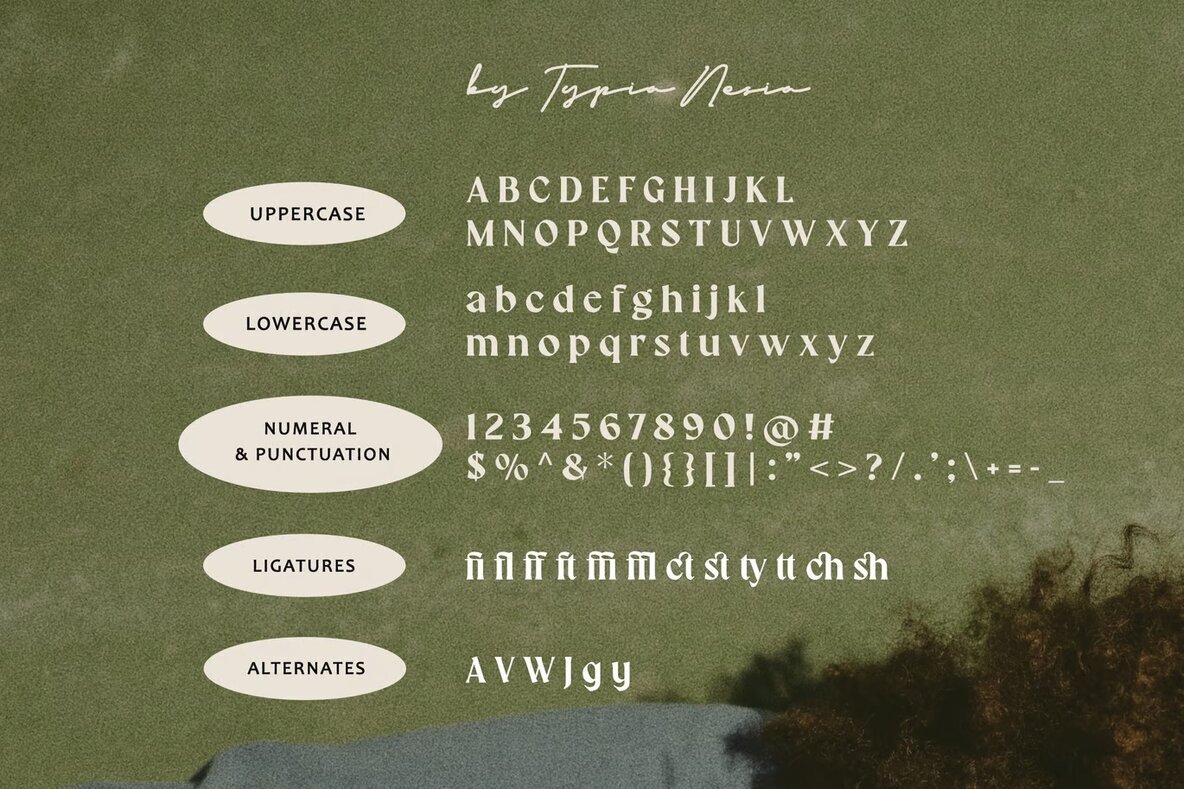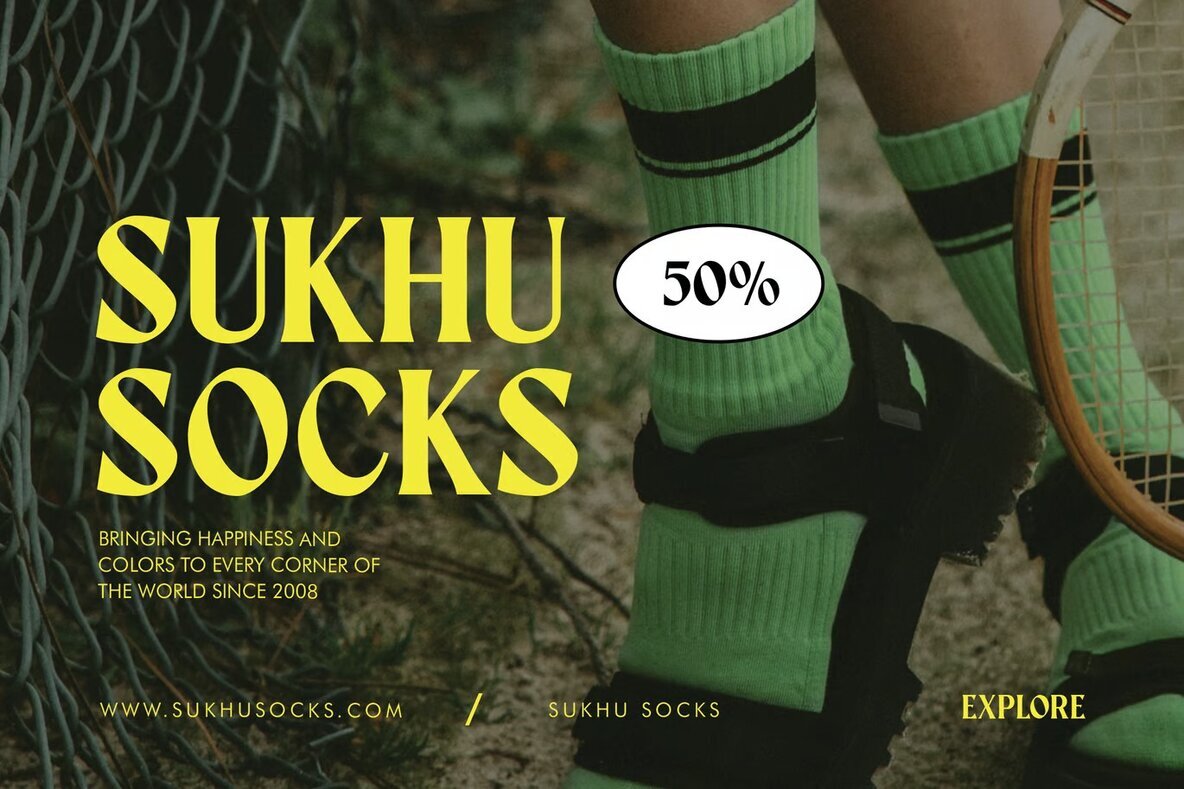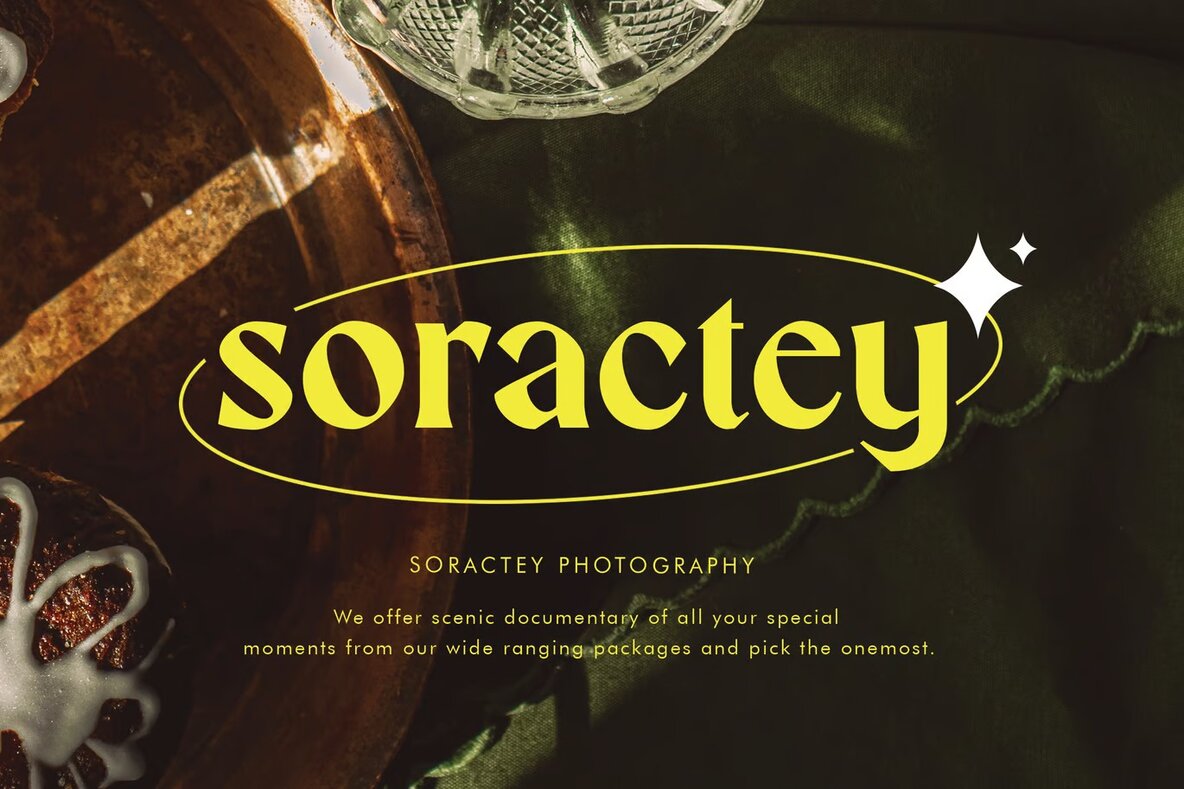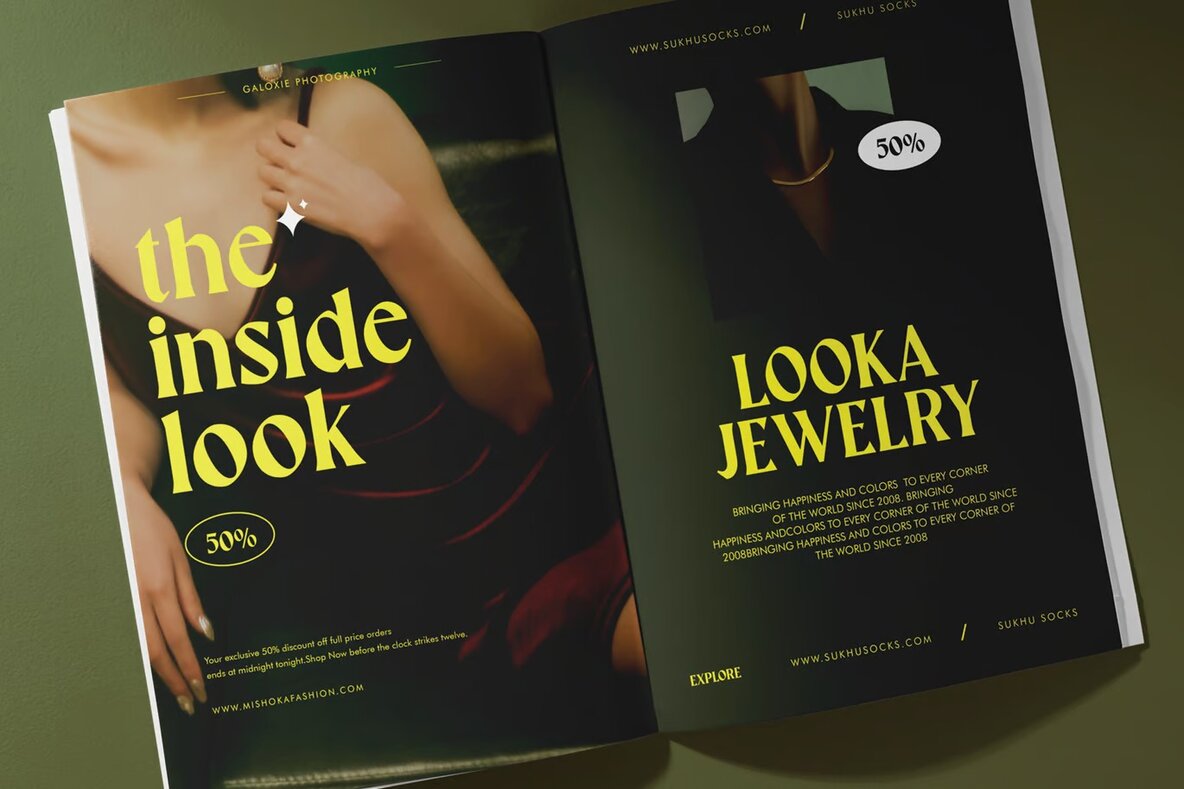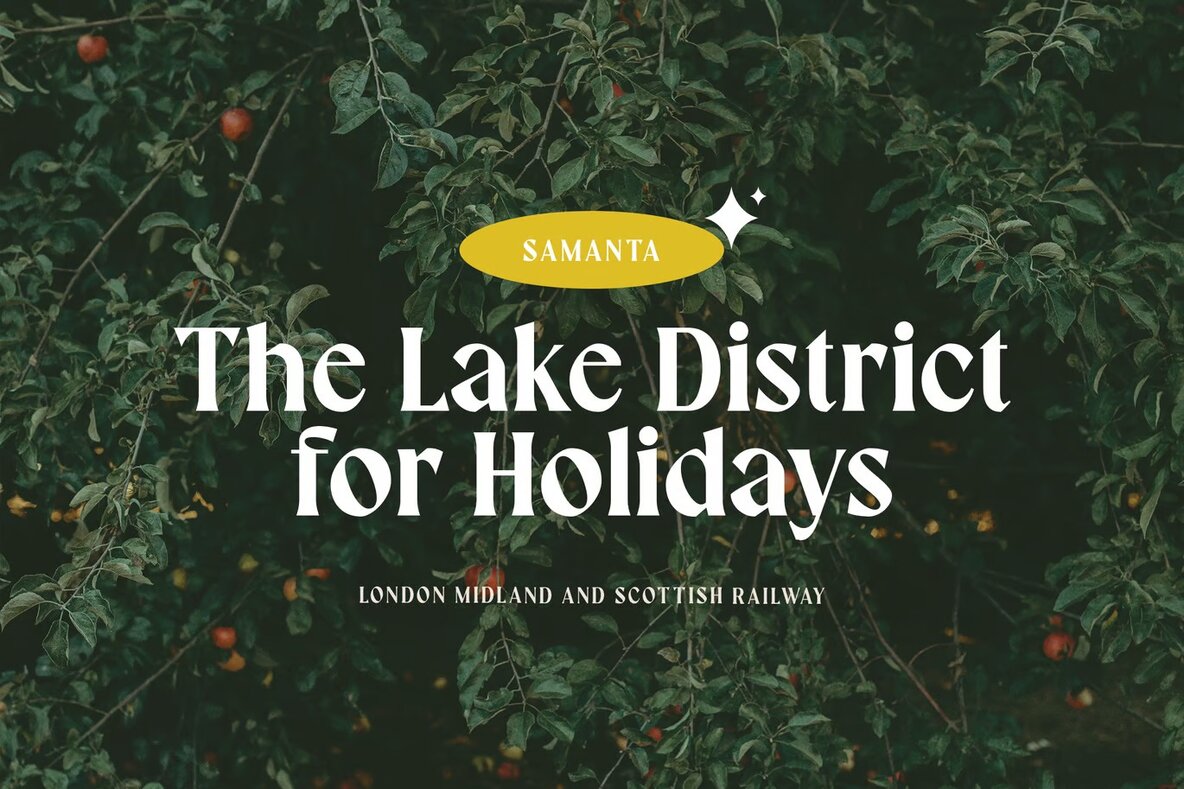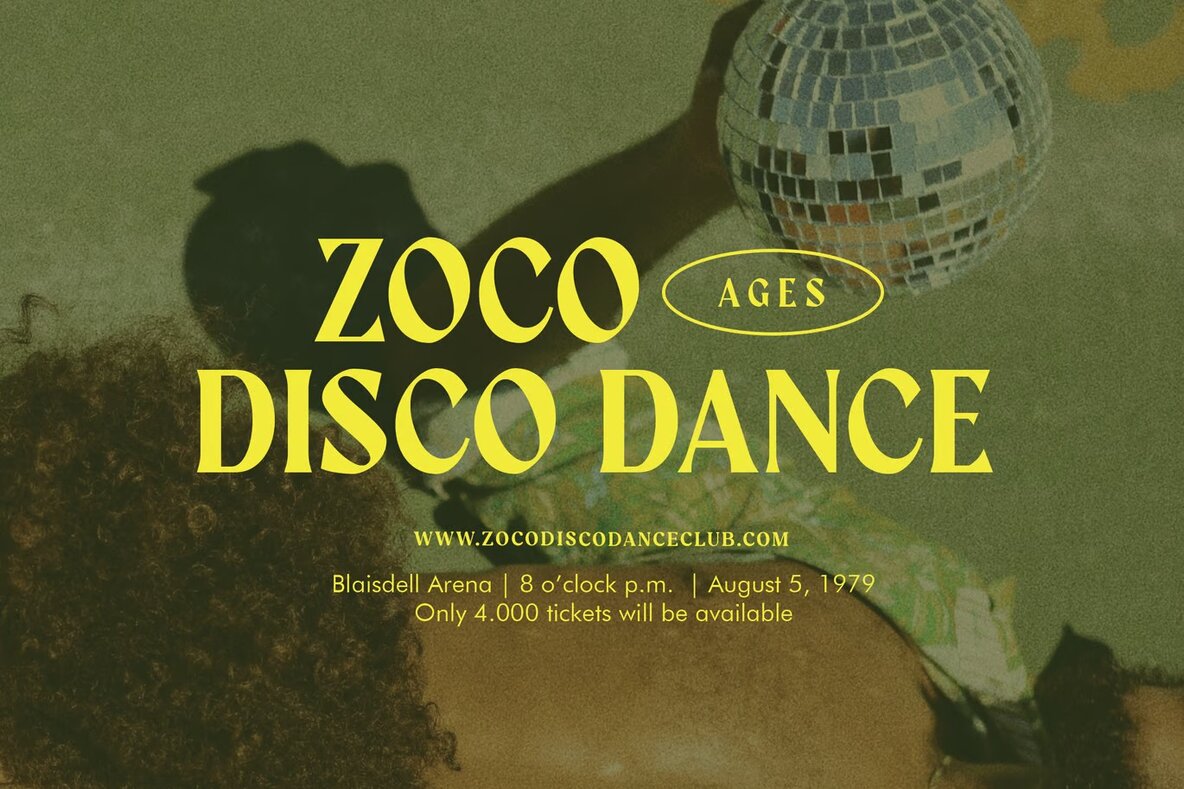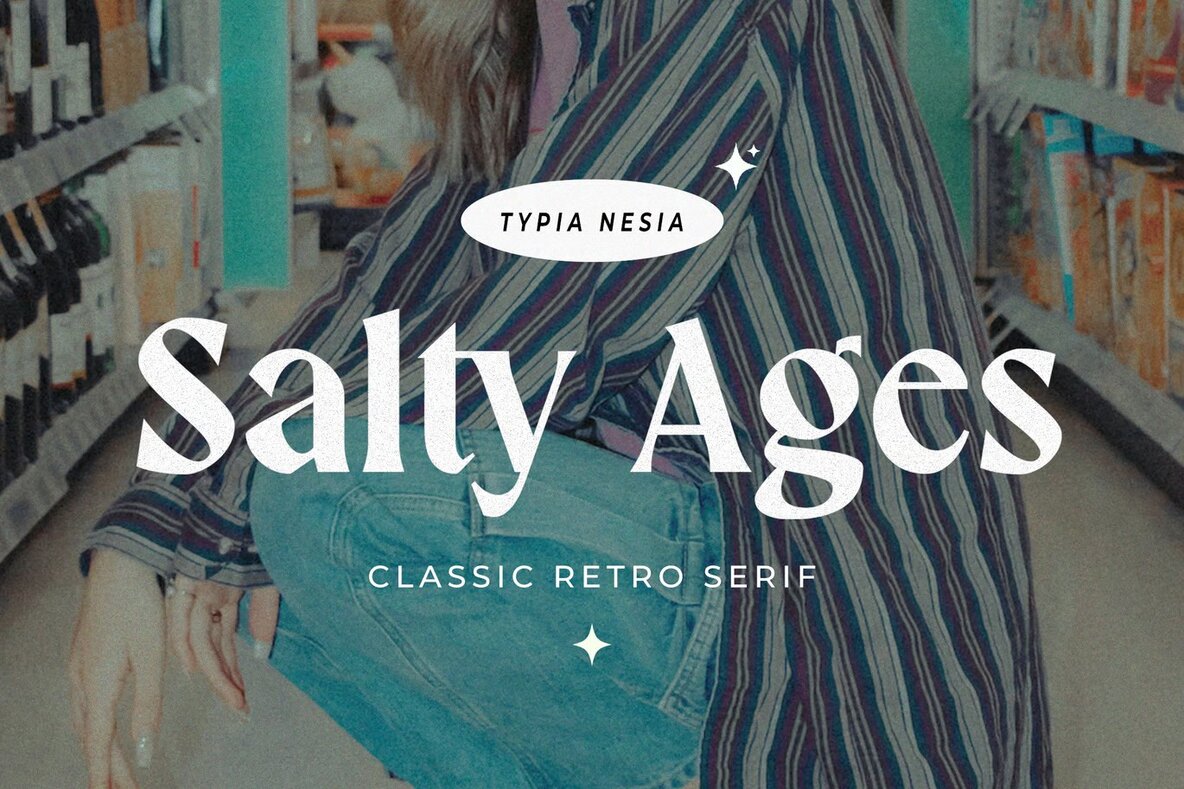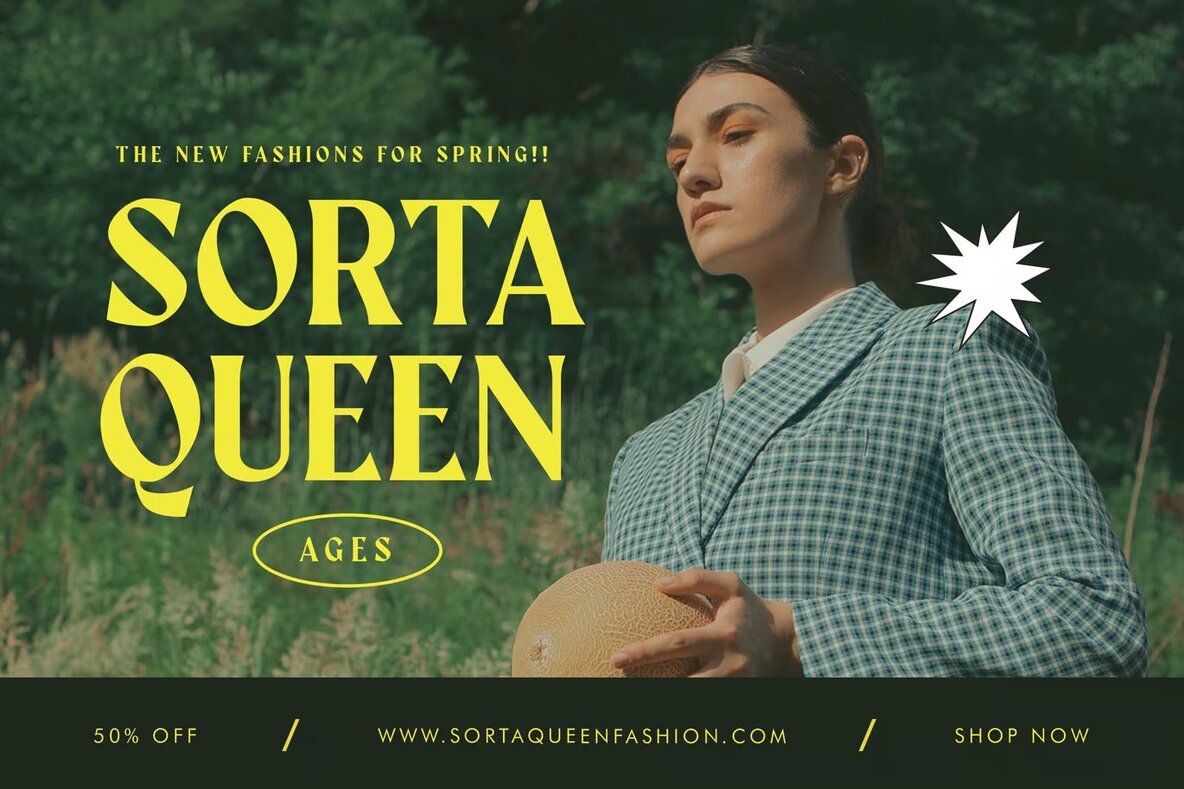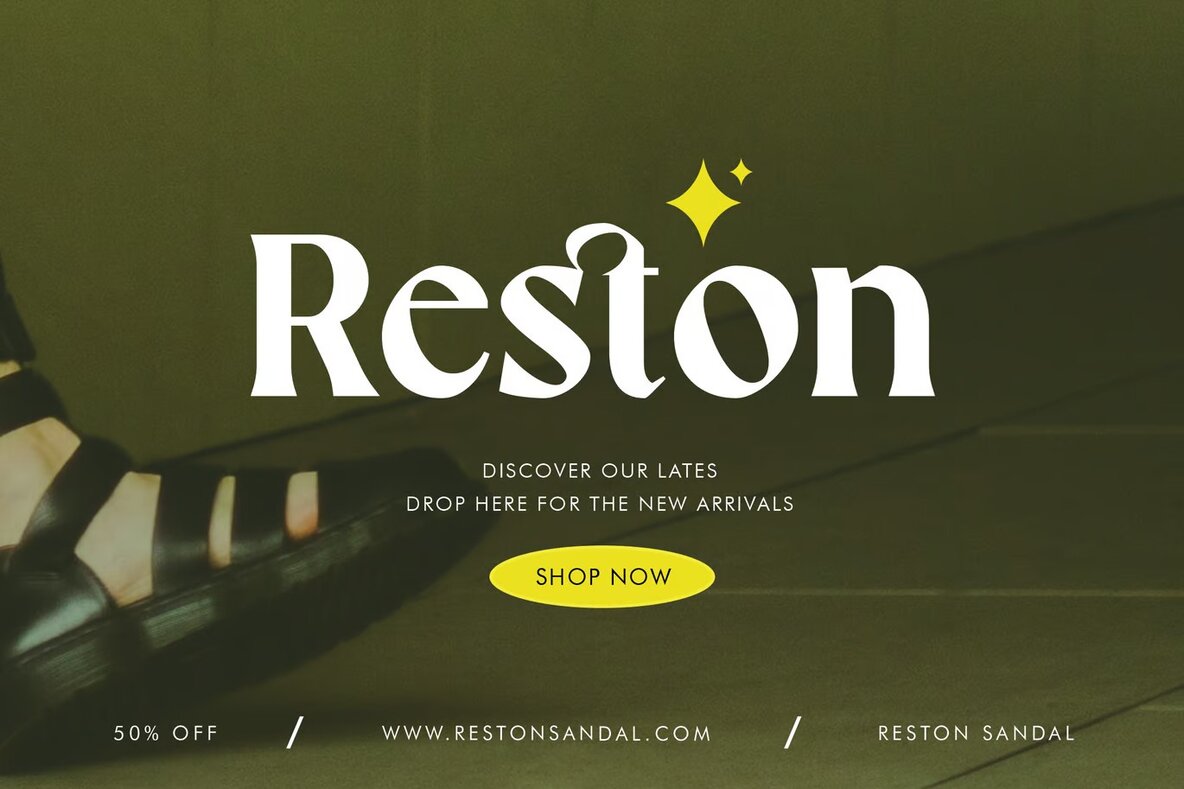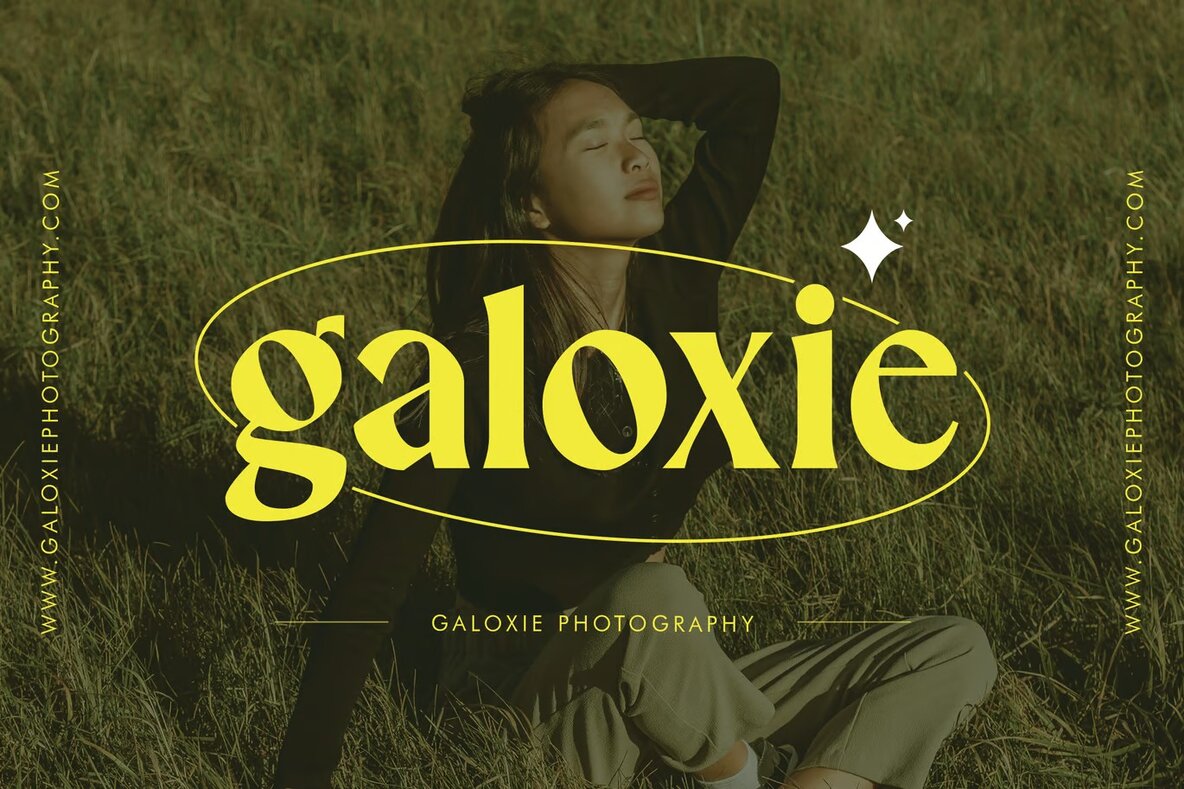
Salty Ages Font
Salty Ages Regular
Salty Ages is a classic bold serif font that exudes a retro vibe while maintaining a modern elegance. This font is ideal for a variety of projects, including luxury logos, branding, and sophisticated editorial designs. Its elegant and fancy characteristics make it perfect for high-end applications such as woman magazines, cosmetic brands, and fashion promotions.
Whether you are working on art gallery branding, museum displays, architectural history projects, or boutique branding, Salty Ages fits perfectly. It is also suitable for stationery designs, blog layouts, modern advertising, and event invitations. This versatile font adds a touch of class and sophistication to home decor, book covers, and art quotes.